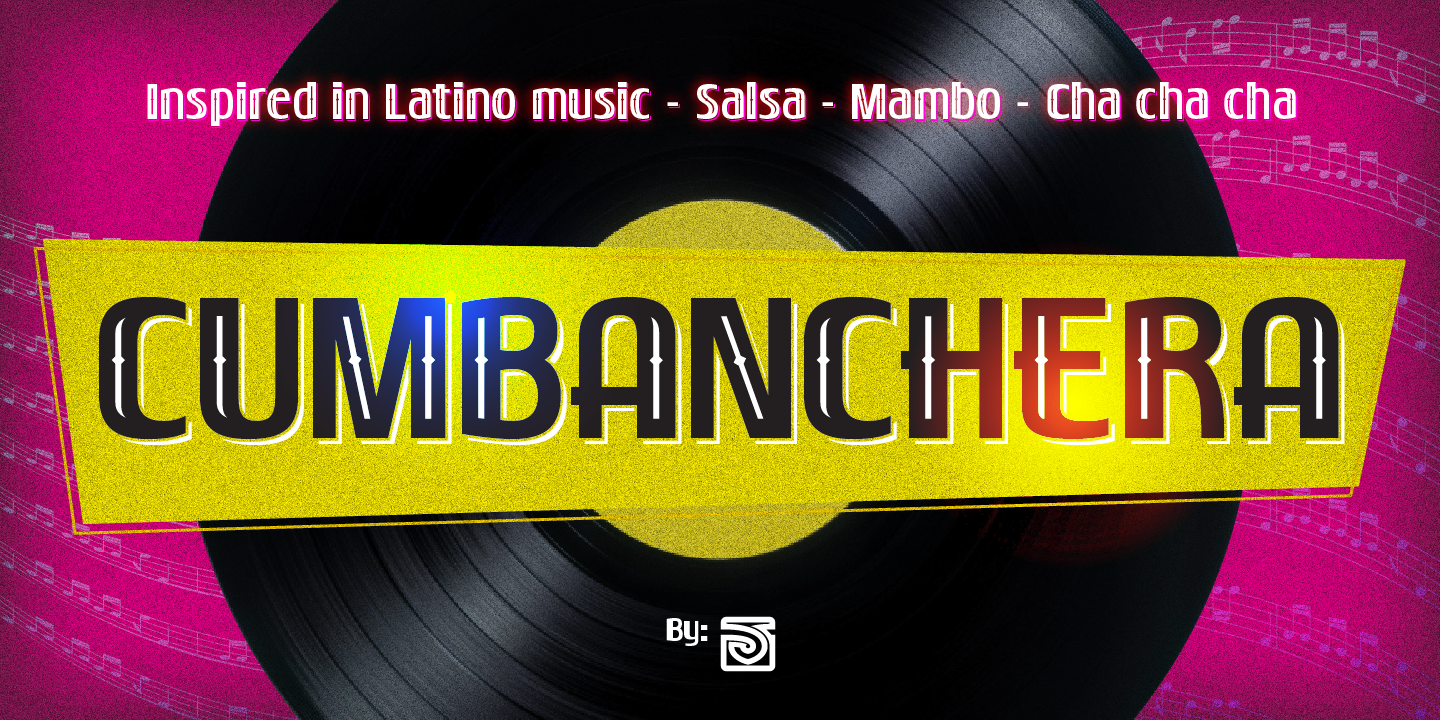
Cumbanchera Font Free Download is a bold, retro-inspired display font full of Latin flair and vintage charisma. Please note: you must purchase a license for commercial use — this font is available as a free download strictly for testing and personal use.
Ideal for music posters, retro branding, bar or restaurant menus, vintage labels, festival flyers, and lively social media graphics, Cumbanchera Font Free Download brings vibrant energy and nostalgic charm to every design.
What makes this font so exciting is its lively curves, blocky letterforms, and a rhythmic style that feels like it's dancing off the page. Inspired by the festive aesthetics of mid-century Latin American typography, Cumbanchera instantly adds personality and joy to your visuals.
The Cumbanchera font family includes styles like Regular and Shadow — allowing you to layer and play with depth, giving your typography a bold, attention-grabbing look that still feels friendly and fun.
If your design needs a retro heartbeat and a splash of celebration, Cumbanchera Font Free Download is your go-to font. Download it today, try it out, and let your creative work groove with vintage soul and tropical flair.